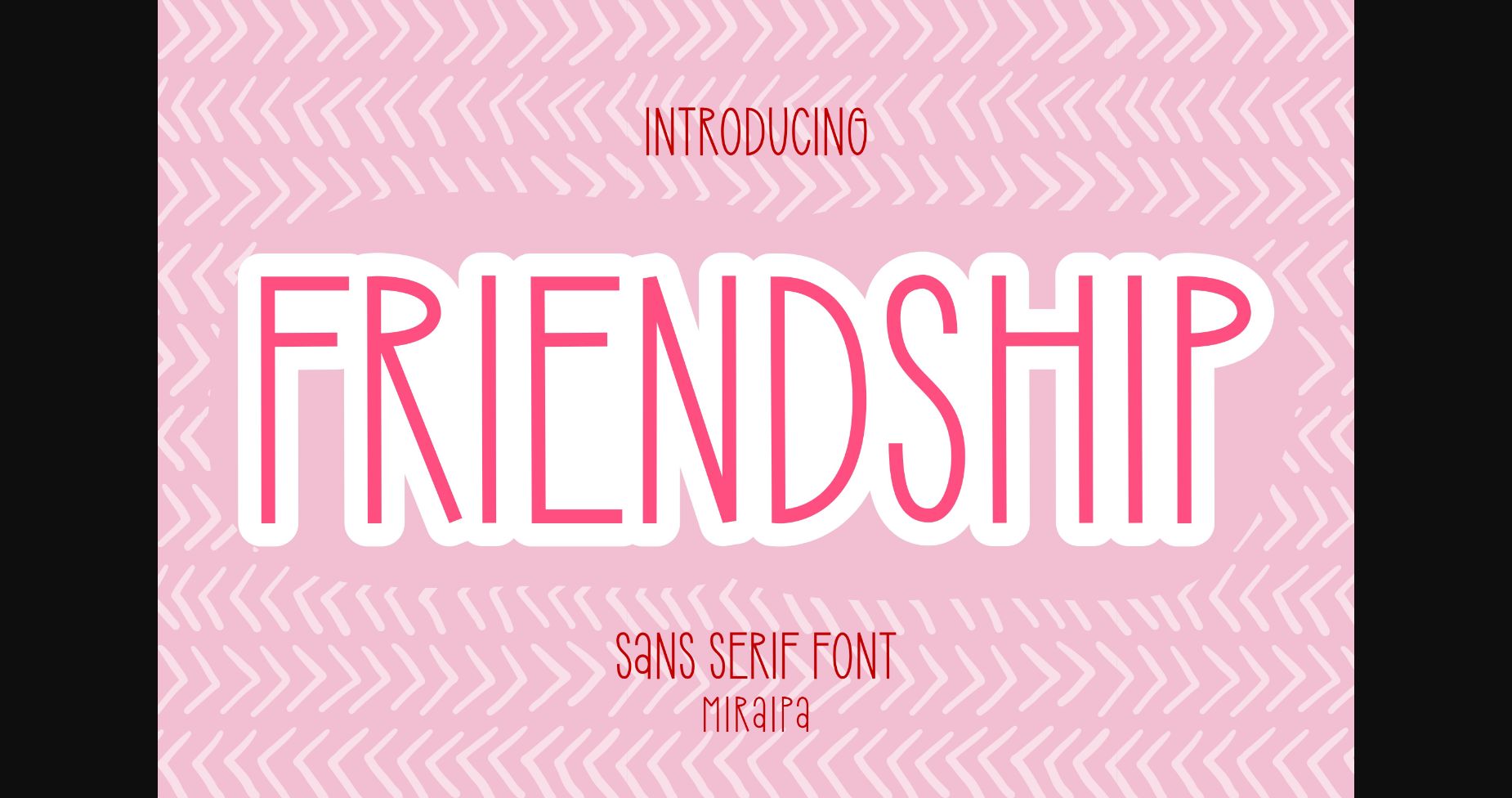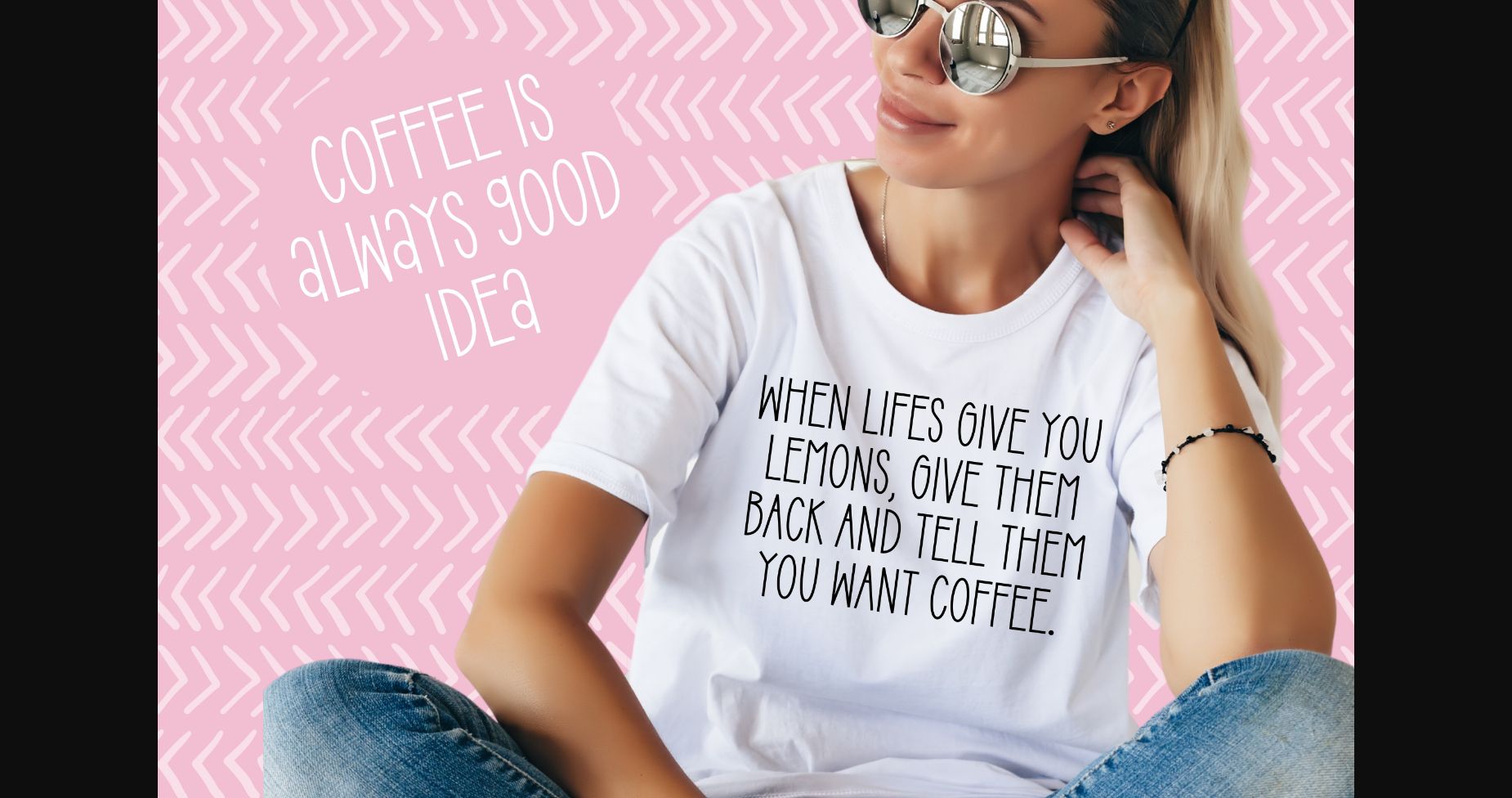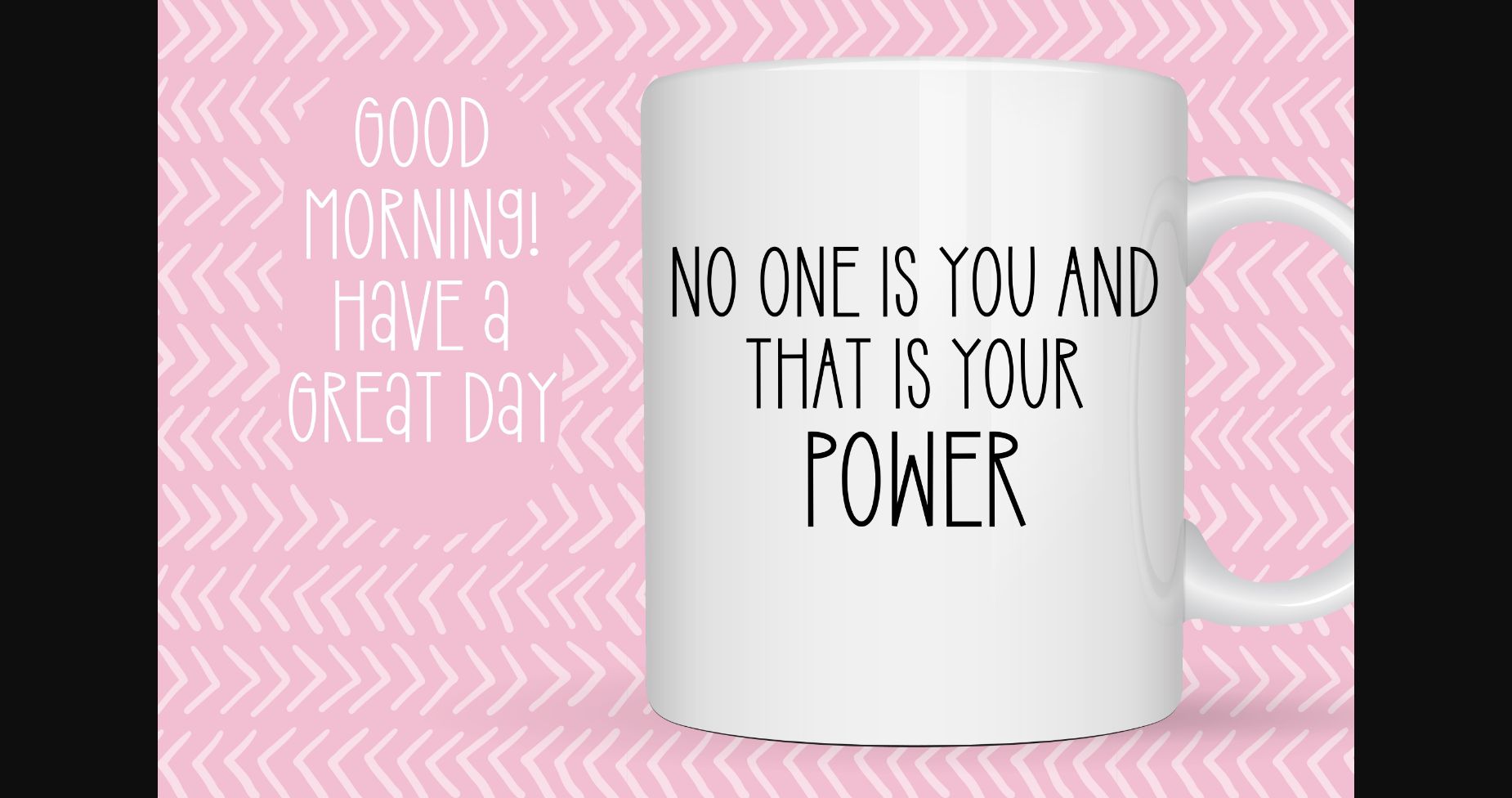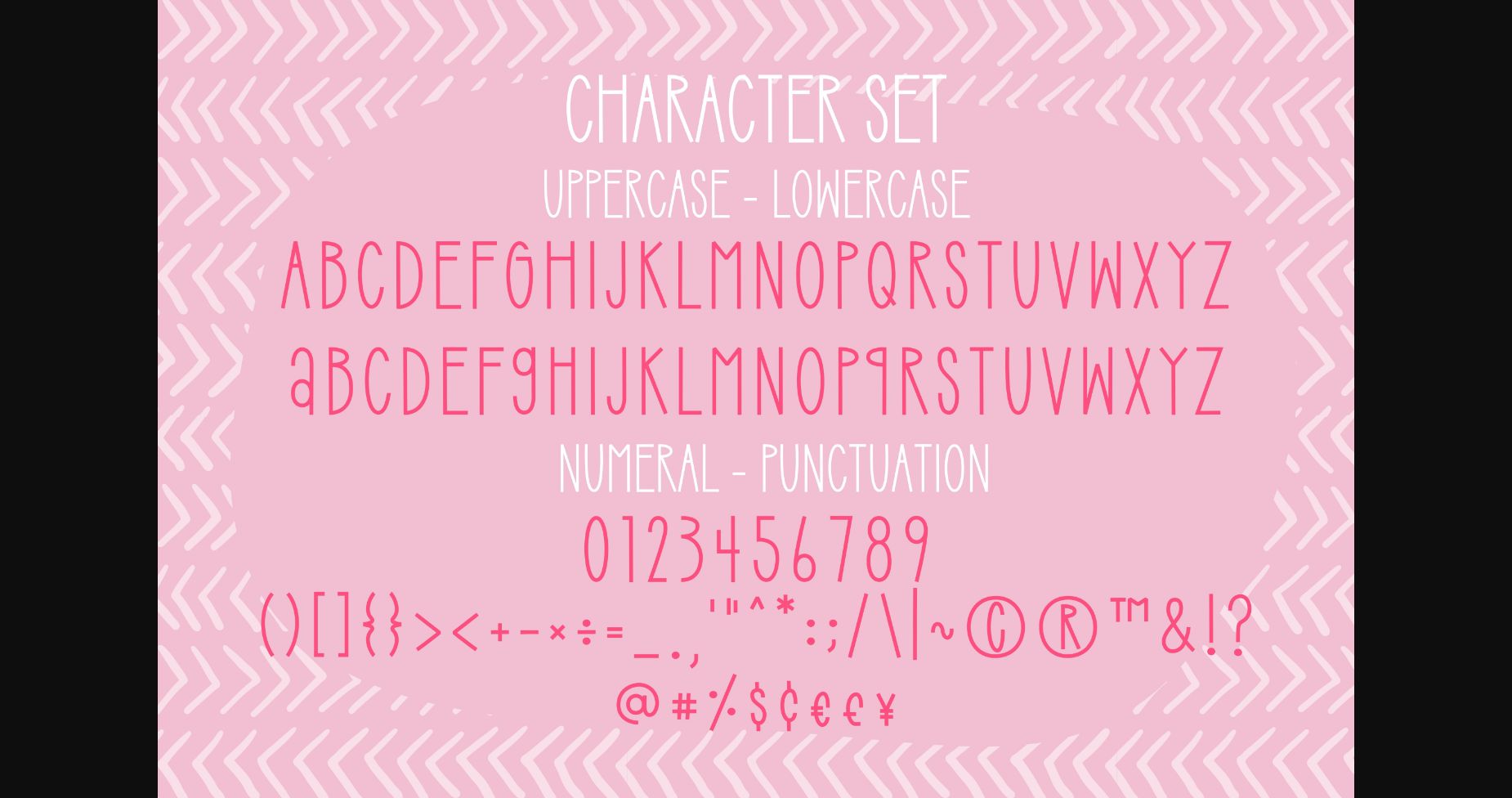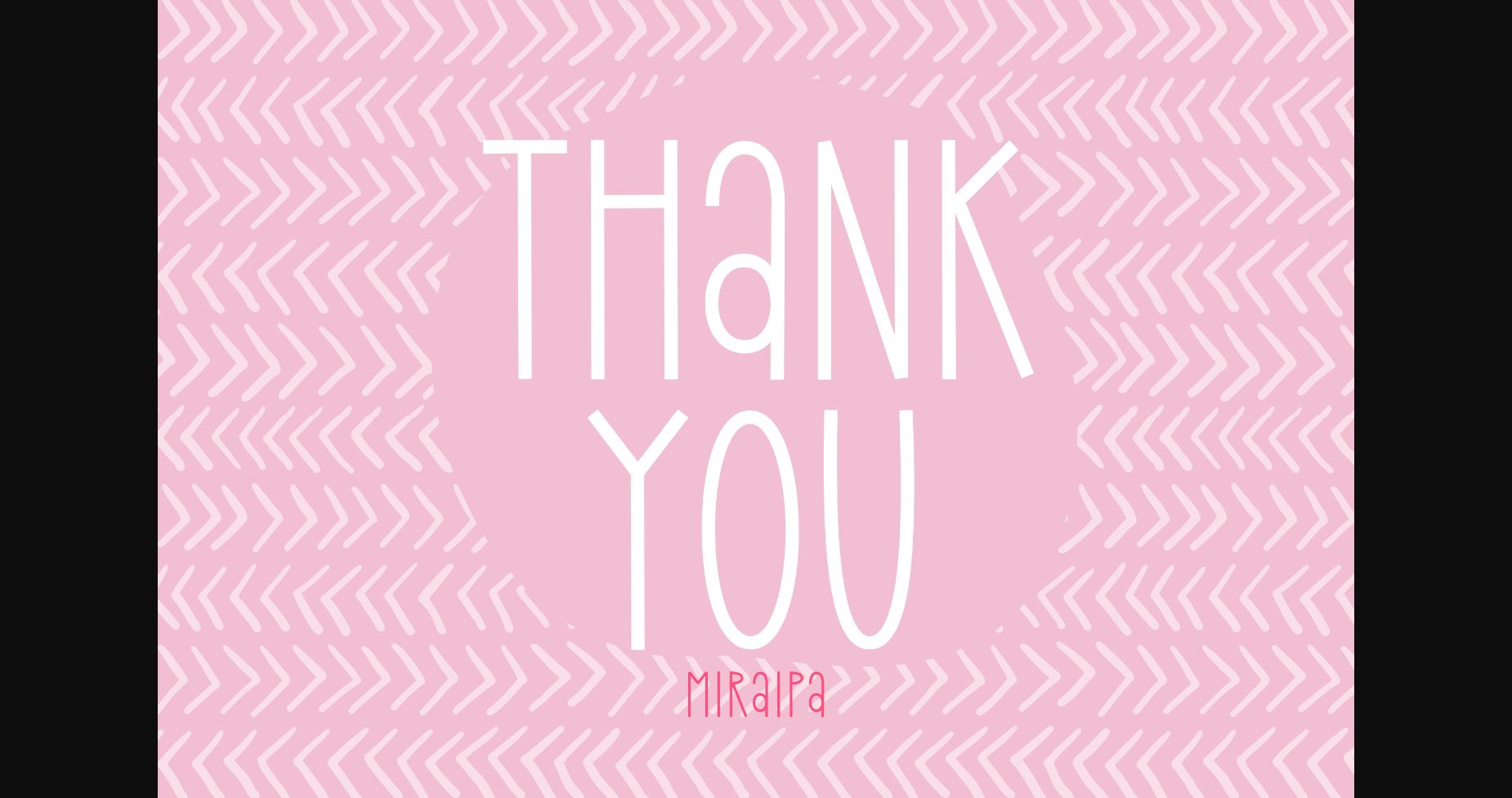
About Friendship Font
Friendship is designed in a cute and playful sans serif font style. It is charming, whimsical, and a bit quirky. It would be awesome to your fun projects such as Easter, back to school, wedding, party decorations, invitations, Christmas, posters, blogs, clothing, child-related designs, greeting cards, social media posts or anything that needs a friendly touch.